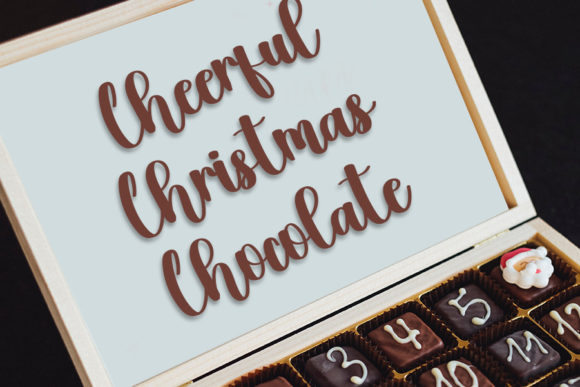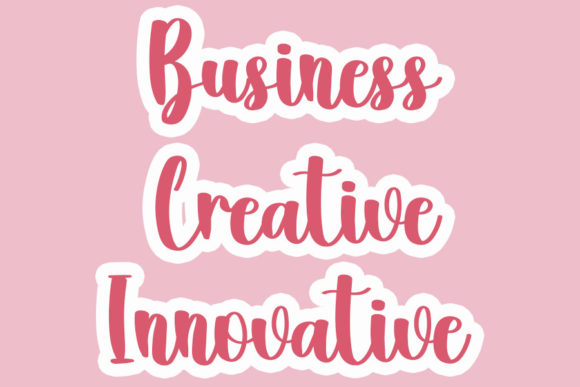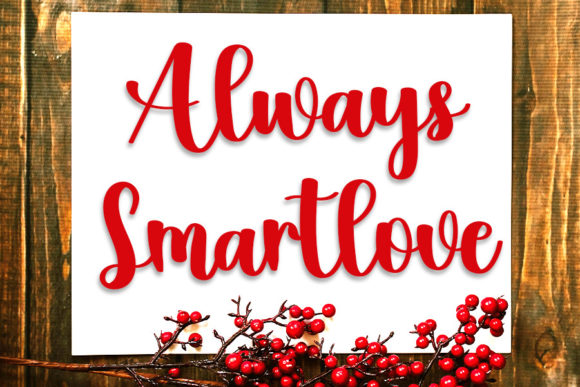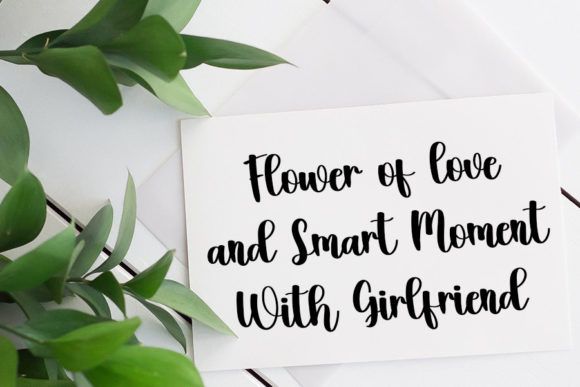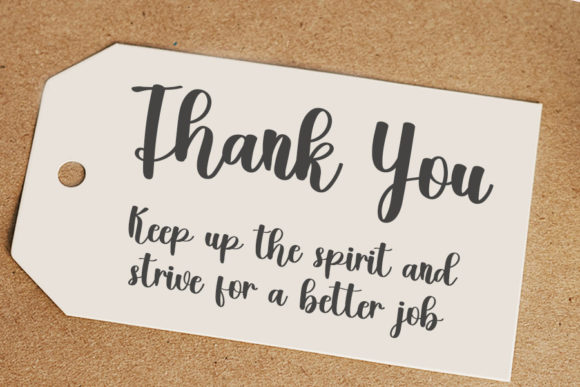
Discover the Elegance of Anitha Font: Elevate Your Designs with its Flowing Script
Are you a designer or crafter looking for a font that exudes elegance and sophistication? Look no further than Anitha Font, a stunning script font that is sure to captivate your audience. With its flowing and graceful design, Anitha Font is perfect for creating beautiful wedding invitations, stationary art, social media posts, and more.
The Beauty of Anitha Font
Anitha Font is a masterpiece of typography, designed to evoke a sense of luxury and refinement. Its ravishing style is characterized by smooth, flowing lines and elegant curves, making it perfect for designs that require a touch of sophistication. Whether you’re creating wedding invitations, greeting cards, or social media graphics, Anitha Font is sure to add a level of elegance and poise to your work.
What Makes Anitha Font So Versatile?
One of the key benefits of Anitha Font is its versatility. This beautiful script font can be used in a wide range of design applications, from:
• Wedding invitations and stationery: Create stunning wedding invites, save-the-date cards, and ceremony programs that set the tone for a luxurious and unforgettable celebration.
• Stationary art: Design beautiful greeting cards, gift tags, and journal pages that showcase your creativity and attention to detail.
• Social media posts: Elevate your social media game with eye-catching graphics that feature Anitha Font’s elegant script.
• Branding and packaging: Use Anitha Font to create luxurious brand identities, product labels, and packaging that reflect your brand’s values and personality.
Why Designers and Crafters Love Anitha Font
Anitha Font has quickly become a favorite among designers and crafters, and for good reason. Here are just a few reasons why:
• High-quality design: Anitha Font is designed to the highest standards, with smooth lines, elegant curves, and a level of detail that is unmatched by other fonts.
• Flexibility: Anitha Font can be used in a wide range of design applications, from digital graphics to print materials.
• Unique style: Anitha Font’s unique script style sets it apart from other fonts, making it perfect for designers and crafters who want to add a touch of elegance to their work.
Tips for Using Anitha Font
To get the most out of Anitha Font, here are a few tips to keep in mind:
• Pair it with contrasting fonts: Combine Anitha Font with bold, sans-serif fonts to create a striking contrast that adds visual interest to your design.
• Experiment with colors: Anitha Font looks stunning in a range of colors, from metallic gold and silver to rich jewel tones.
• Play with sizes: Use Anitha Font in a range of sizes to create visual hierarchy and add emphasis to key elements in your design.